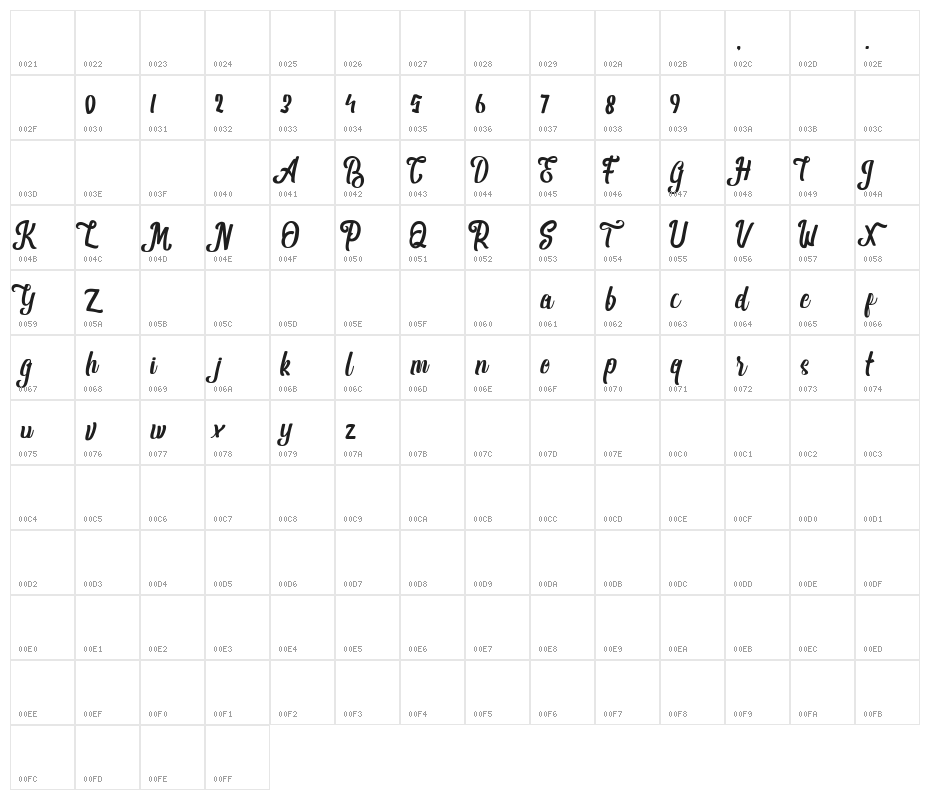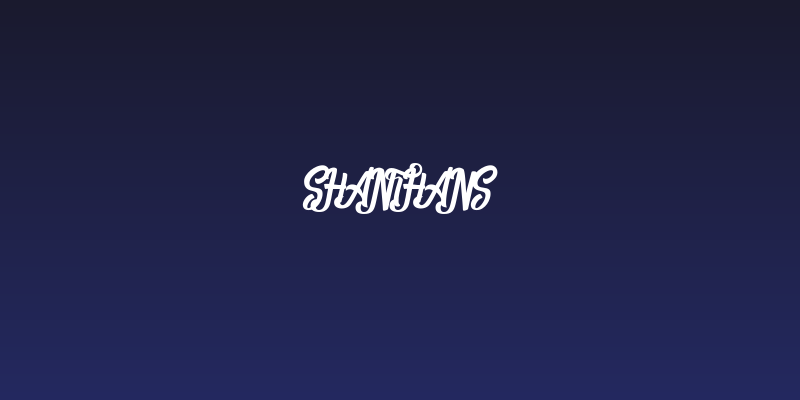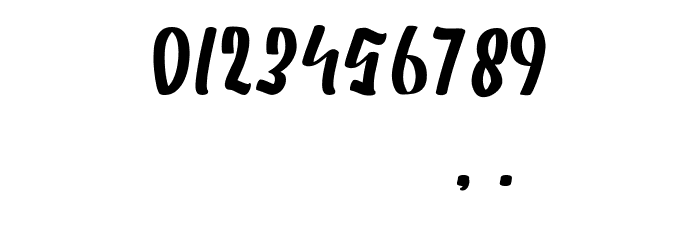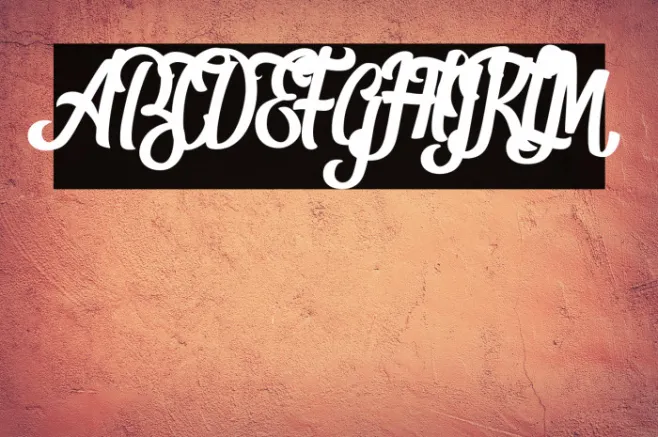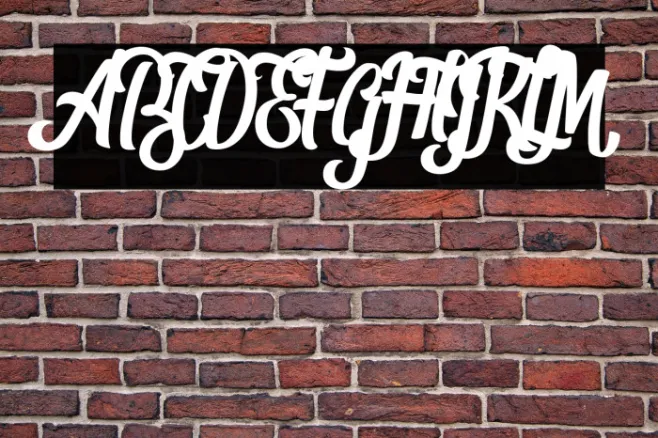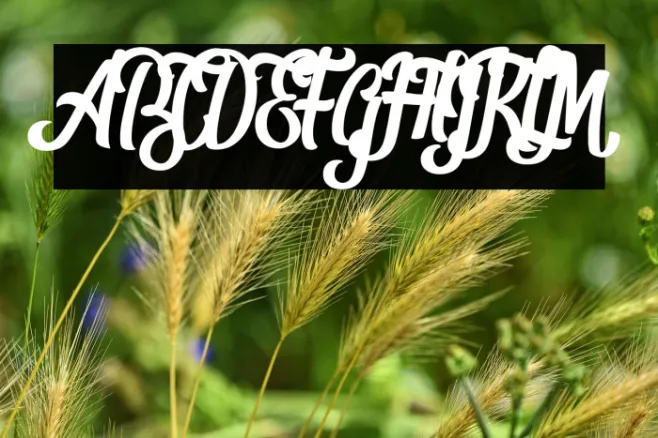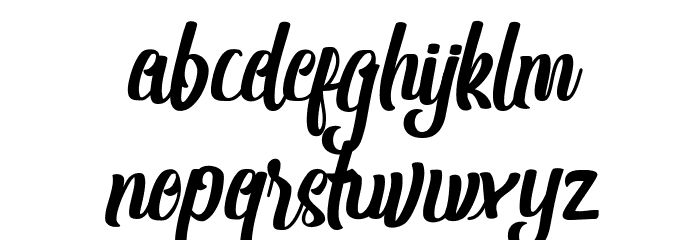
Shanthans Font
Shanthans Description
This font features a bold, flowing script style with a distinct calligraphic influence. The uppercase letters are ornate and interconnected, creating a sense of movement and elegance. The lowercase letters maintain a consistent flow, with smooth curves and loops that enhance readability. Numbers are styled to match the overall aesthetic, with a playful yet sophisticated appearance. The special characters are integrated seamlessly, maintaining the font's cohesive look. This font is ideal for projects that require a touch of elegance and personality.